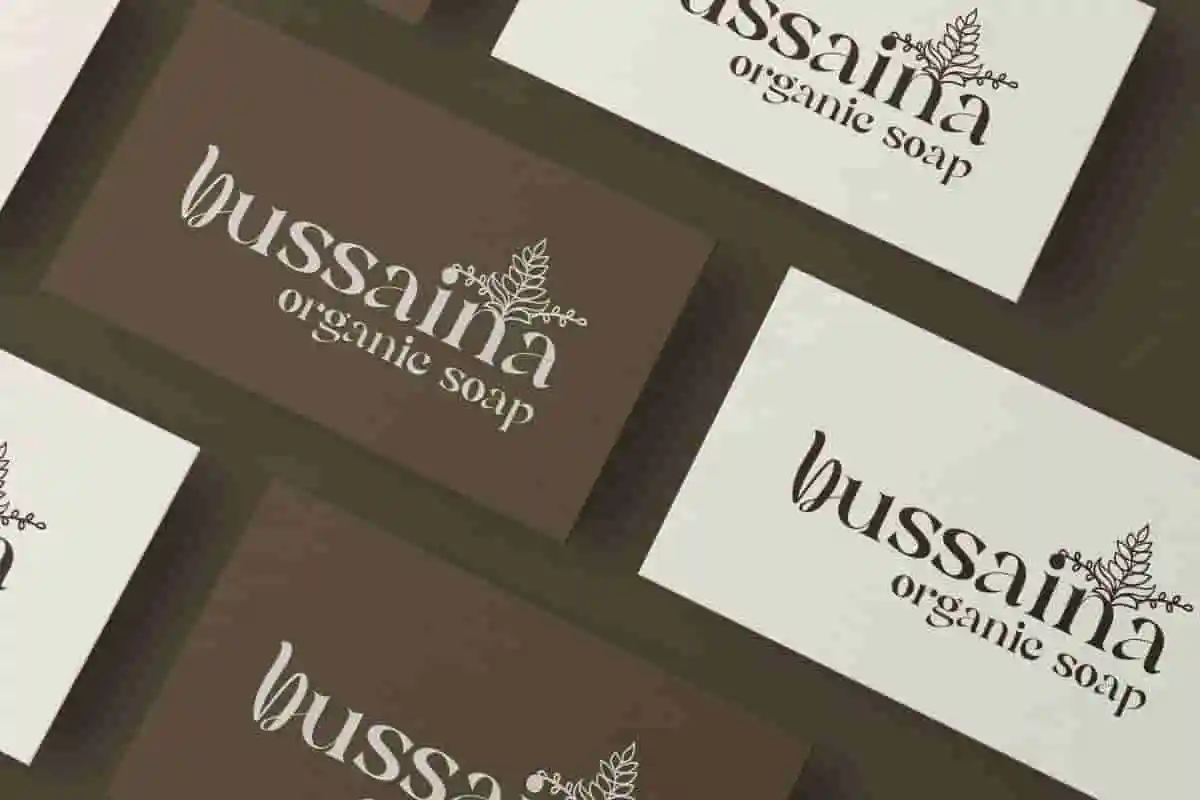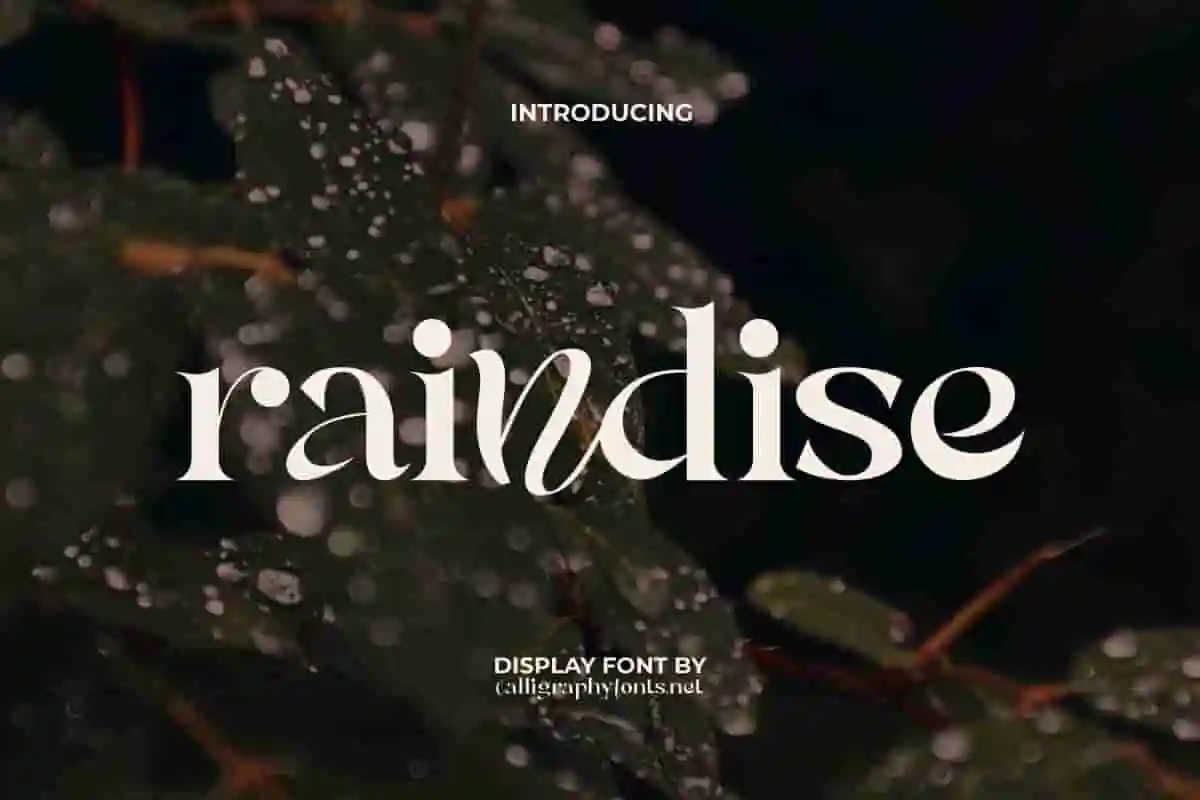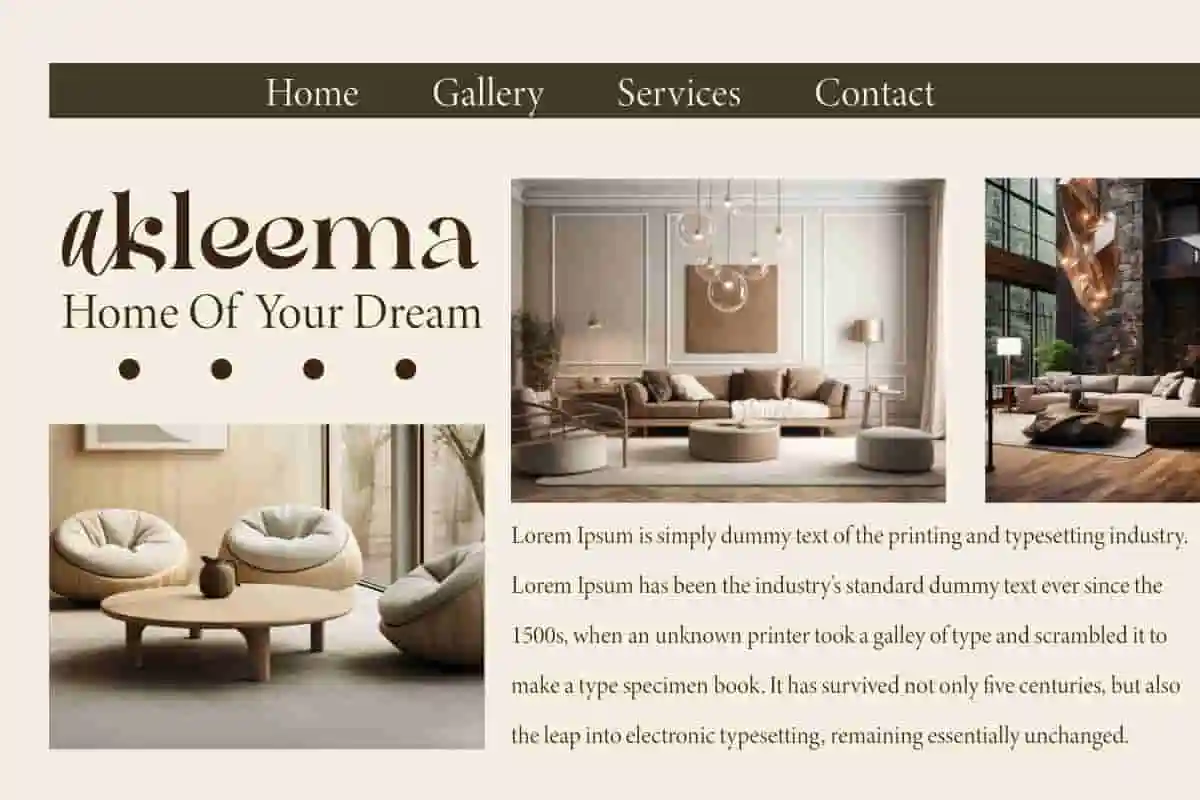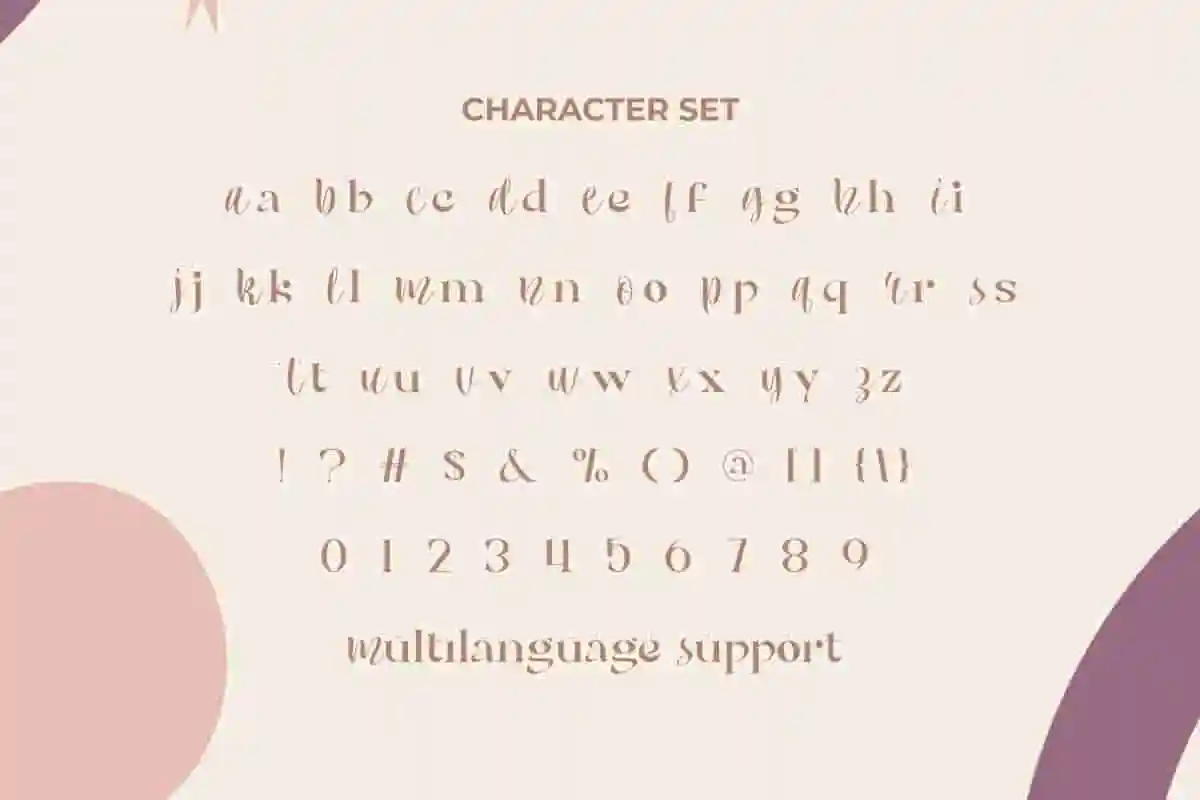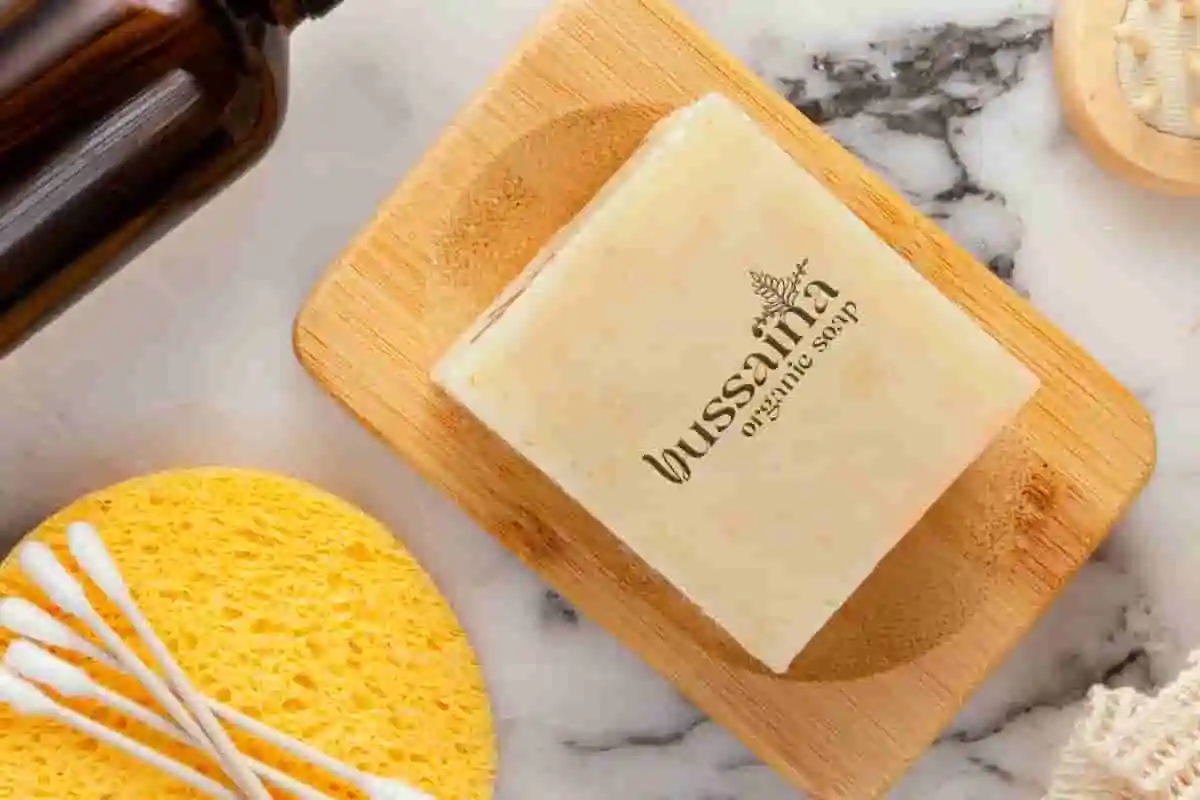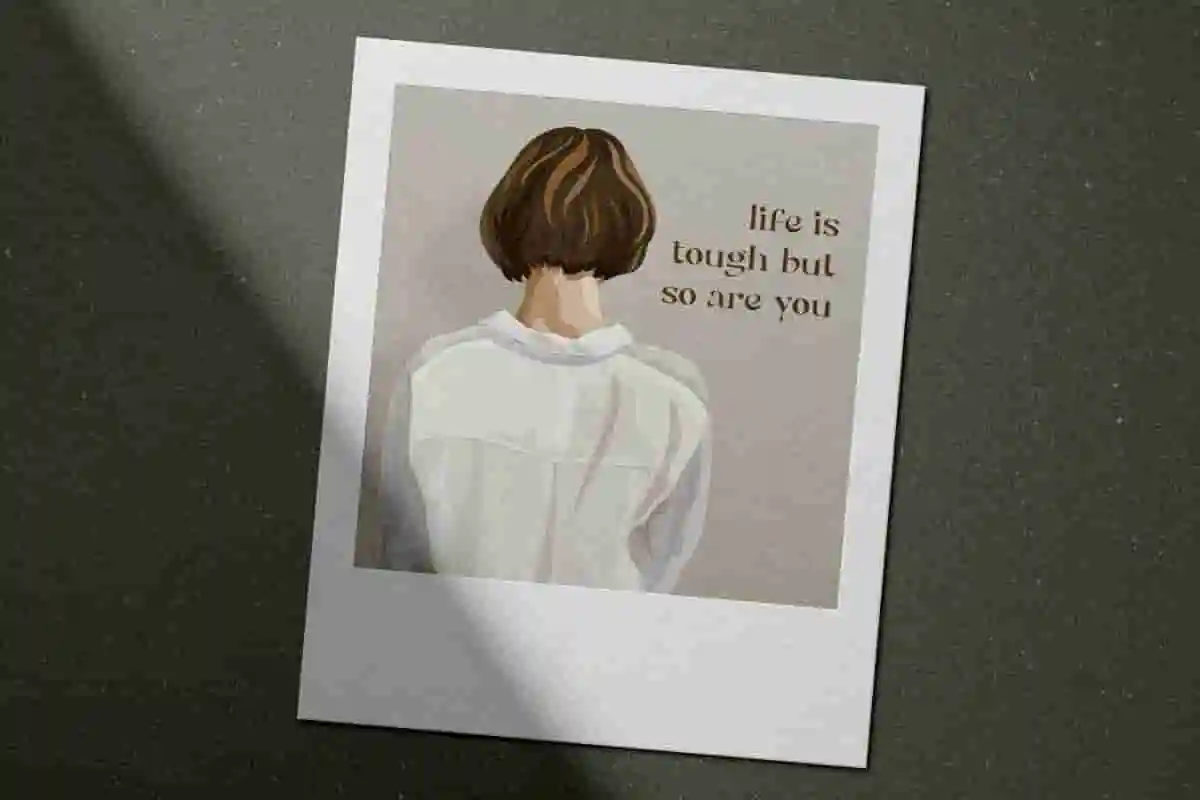
Raindise Font
Raindise Font is a perfect typography that combines a beautiful and charming collection of classic serif fonts and elegant handwriting. With a versatile style, you can use this font for any purpose!
Raindise Font is an elegant and timeless display font inspired by the charm of vintage typography that has been modernized. It feels different from the usual because all the characters are displayed in lowercase with a slightly different mix of styles. Perfect for craft, corporate, fashion, graphic design, home designer, home furniture, photography, retail soap, and much more.
Raindise Font captures the nostalgia of classic aesthetics with a modern twist. Easily adaptable to any design need, it makes it easy to achieve eye-catching results with minimal effort. You can use this font for apps, blogs, body text, brochure, business card, carved objects, greeting cards, headers, logo, mockup, packaging, quotes, template, title, websites, and others.